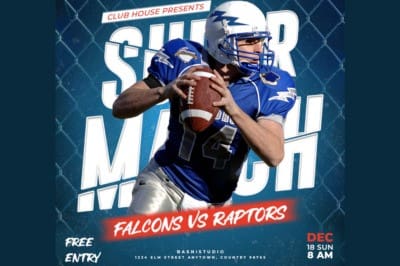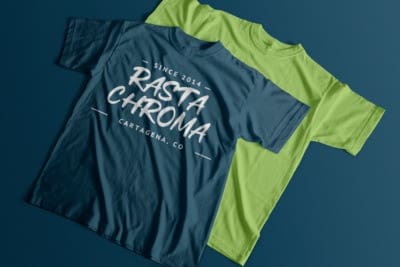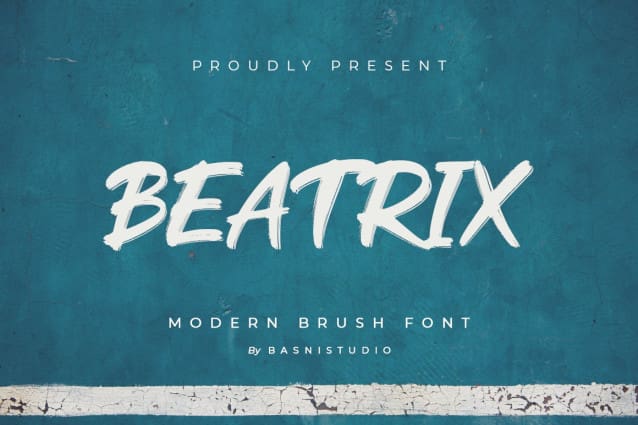
Beatrix Brush Font
Beatrix Brush Font, made with Naturaly, perfect for branding, websites, and editorial designs. Includes all Caps letters, multilingual support, punctuation, binding. everything can be easily accessed using software that supports OpenType.